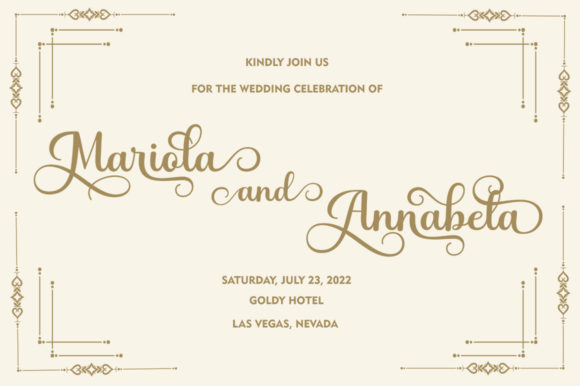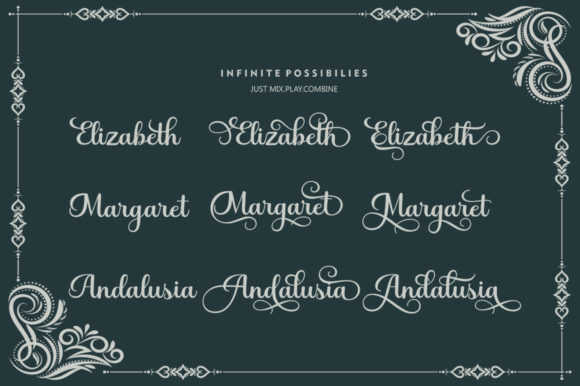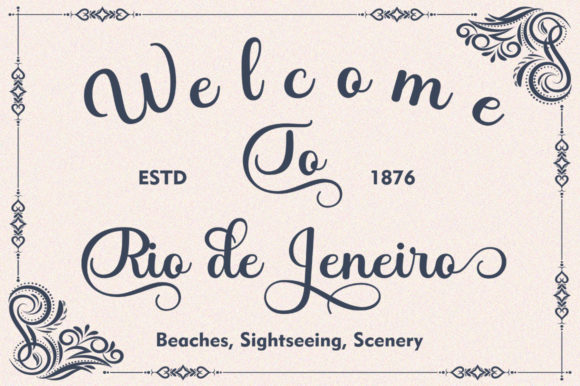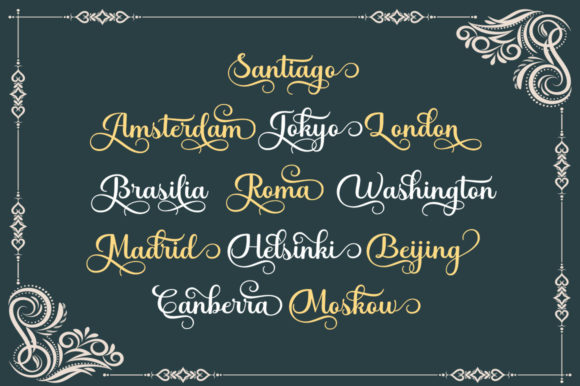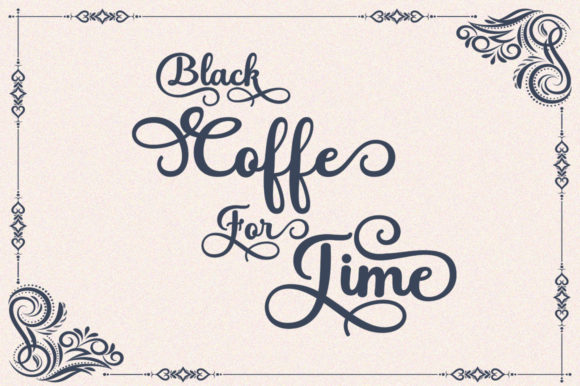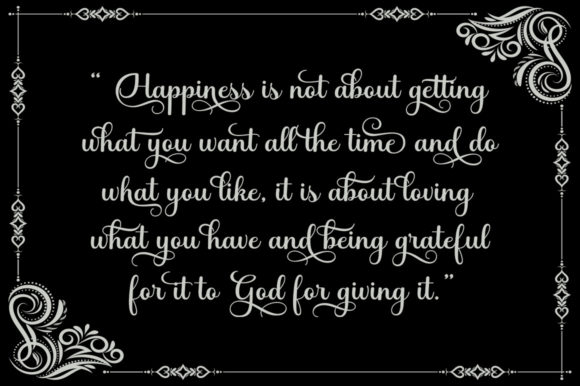
The Perfect Script Font for Your Next Project
Have you ever been stuck in a design rut, staring at a blank page, searching for the perfect font to bring your creative vision to life? I know I have! It’s those moments when we need a little inspiration to get our creative juices flowing. For me, it’s always the discovery of a beautiful, elegant script font that sparks my imagination and sets my project on the right track.
Enter the Best Valentina Font, a stunning script font that embodies the perfect blend of classic calligraphy and modern style. Designed to add a touch of sophistication to any project, this font is a must-have for designers looking to elevate their work. With its balanced and varied form, the Best Valentina Font is the perfect choice for creating beautiful, eye-catching designs.
Key Features of Best Valentina Font
- Unique Characteristics: Elegant and modern design, with a unique blend of geometric and organic shapes
Best Valentina Font Review
Overall, I think the Best Valentina Font is a solid choice for any designer looking to add a touch of elegance to their project. ✨
- Refined aesthetic: The Best Valentina Font has a sophisticated and refined look that’s perfect for high-end branding, fashion, or luxury goods.
- Legibility: The font is highly legible, making it easy to read even in smaller sizes.
- Font pairing options: The Best Valentina Font works well with a variety of other fonts, making it a great addition to any font collection.
However, there are a few limitations to consider. ⚠️
- Not ideal for body text: While the Best Valentina Font is great for headlines and titles, it may not be the best choice for body text due to its formal nature.
- Limited language support: The font may not support certain languages or character sets, which could be a limitation for designers working with international clients.
The Best Valentina Font is a high-quality font that’s perfect for designers looking to add a touch of sophistication to their projects. While it may have some limitations, it’s a solid choice for any designer who wants to create a refined and elegant look.
Getting the Most Out of the Valentina Font
To get the most out of the Valentina font, use it in creative projects that require a elegant and sophisticated look.
- Luxury brand logos and packaging
- High-end marketing materials and brochures
Alternatives to Best Valentina Font for Designers
Playfair Display is an elegant, high-end serif font ideal for luxury brands, high-end fashion, and art-related projects. Its classic feel and sophisticated lines make it perfect for creating a sense of luxury and refinement. Compared to Best Valentina, Playfair Display has a more classical and traditional feel, making it better suited for projects that require a touch of history and sophistication.
Great Vibes is a beautiful, elegant script font that exudes a sense of sophistication and refinement. It’s perfect for creating a sense of luxury and high-end feel, making it ideal for fashion, beauty, and lifestyle brands. Compared to Best Valentina, Great Vibes has a more flowing and dynamic feel, making it better suited for projects that require a sense of movement and energy.
Carolyna Pro is a modern, elegant script font that’s perfect for creating a sense of sophistication and refinement. It’s ideal for fashion, beauty, and lifestyle brands, and its flowing lines make it perfect for creating a sense of movement and energy. Compared to Best Valentina, Carolyna Pro has a more modern and edgy feel, making it better suited for projects that require a sense of innovation and creativity.
Playfair Script
Playfair Script is a beautiful, elegant script font that’s perfect for creating a sense of luxury and sophistication. Its classic feel and flowing lines make it ideal for high-end fashion, art, and luxury brands. Compared to Best Valentina, Playfair Script has a more classical and traditional feel, making it better suited for projects that require a touch of history and refinement.
The recommended font size for the Best Valentina Font is between 10pt and 24pt, depending on the intended use and display size. For body text, 12pt to 14pt is a good starting point, while headings and titles can be set to 18pt to 24pt.